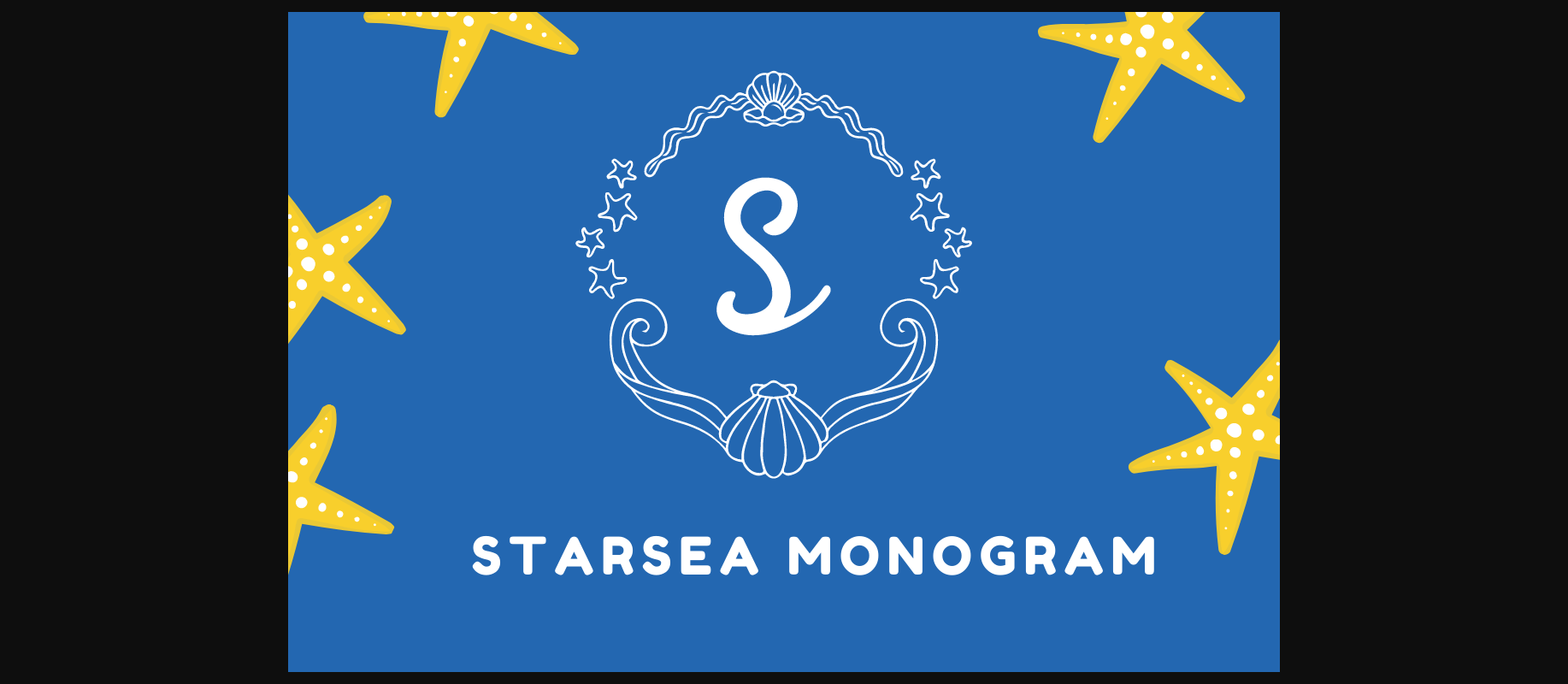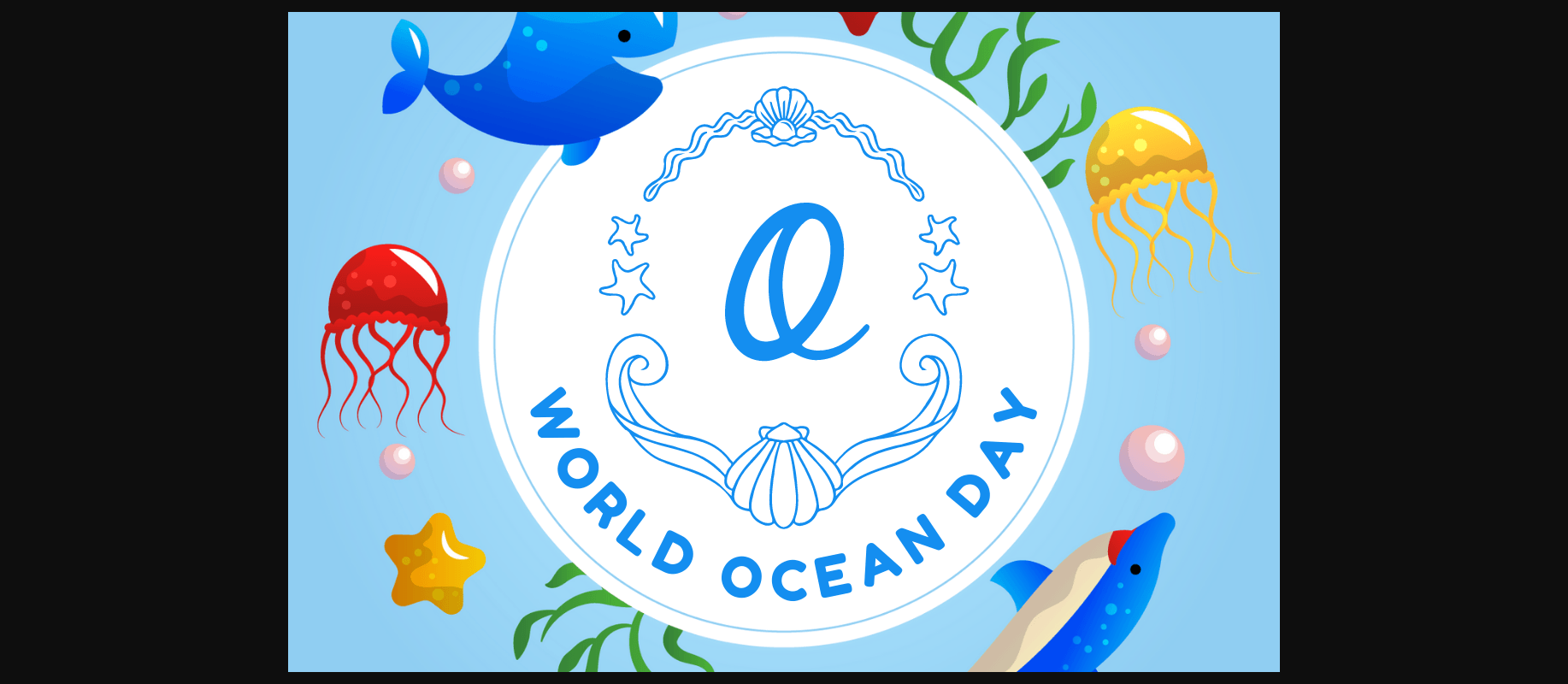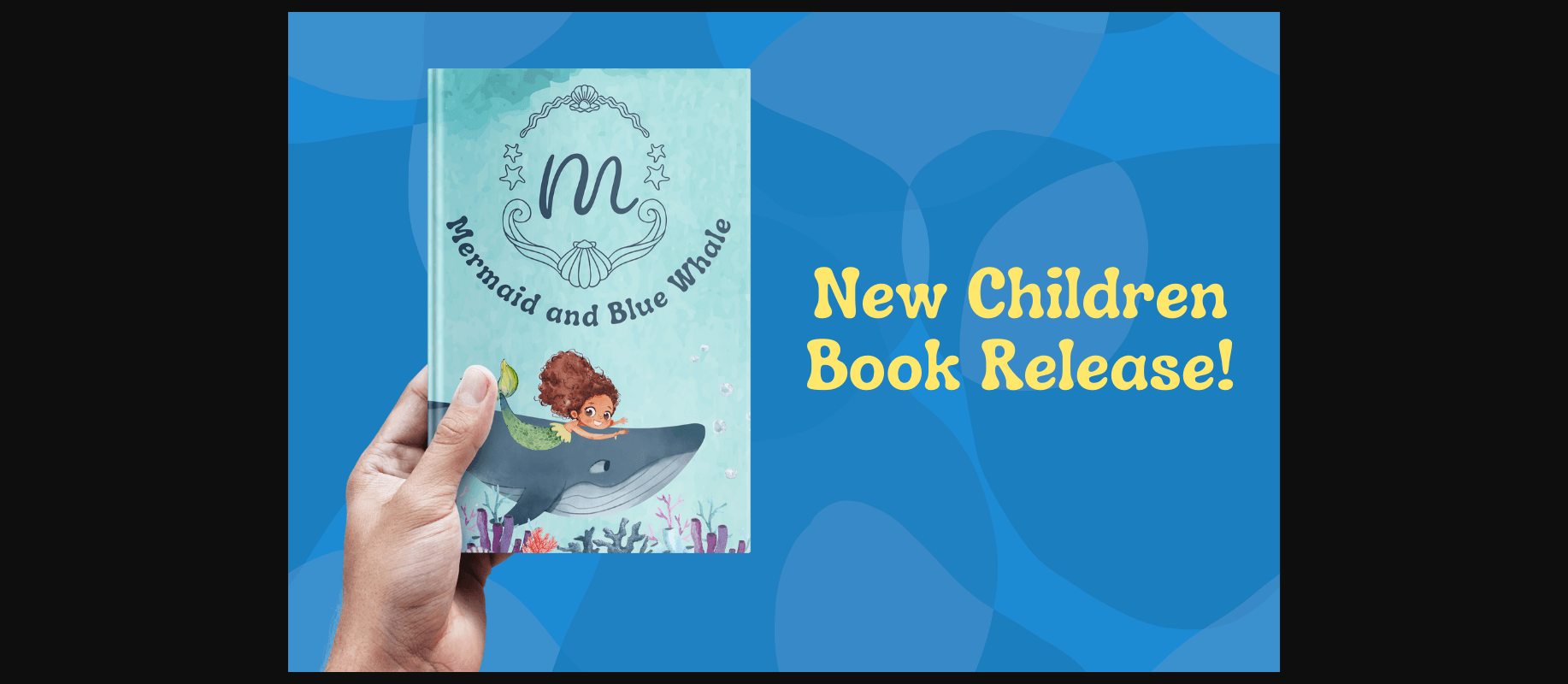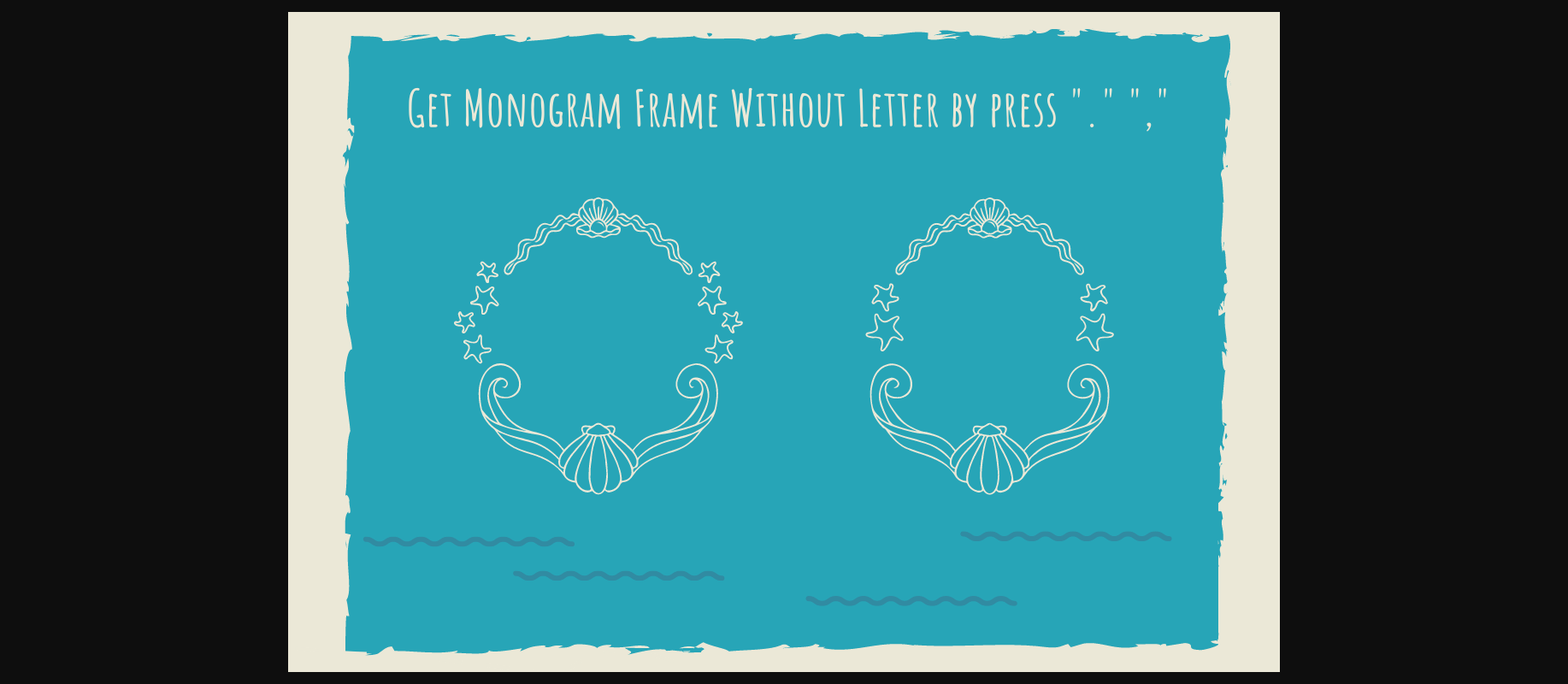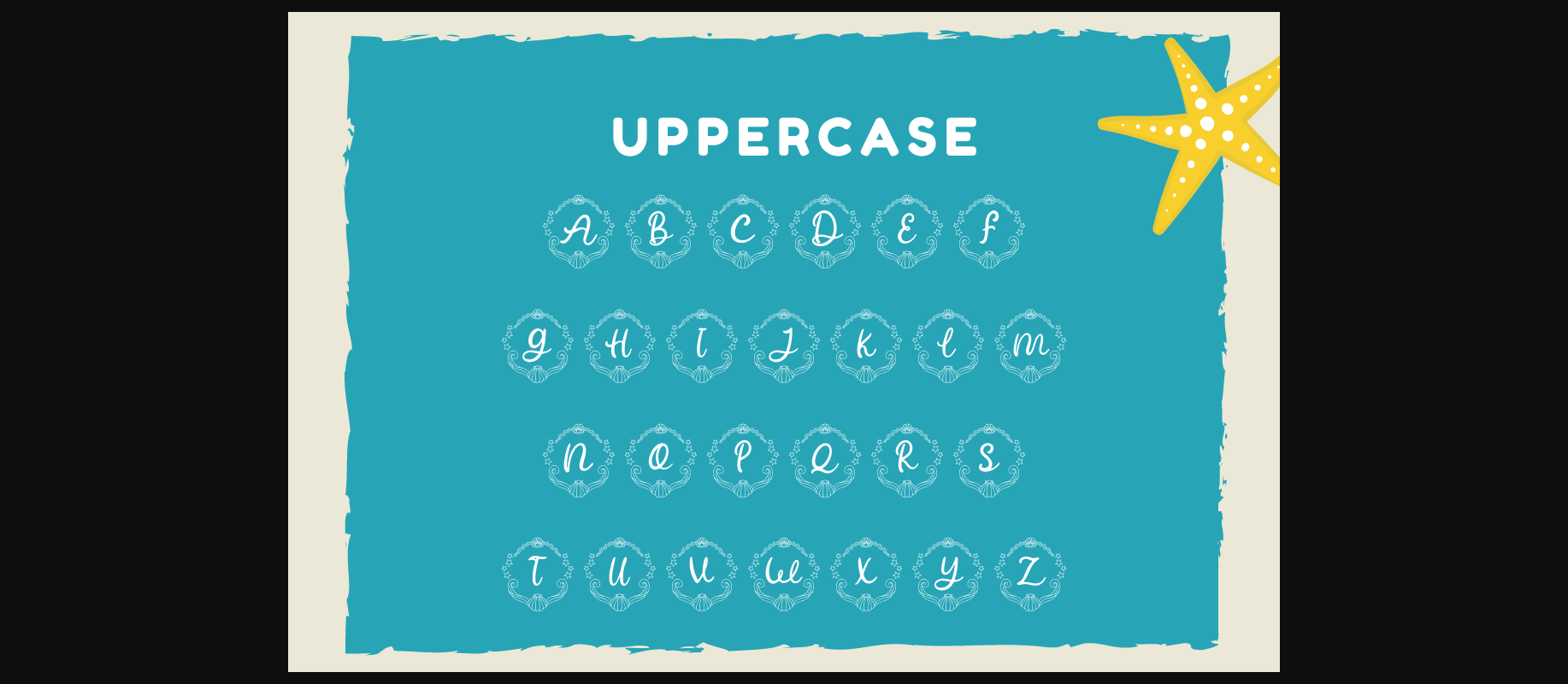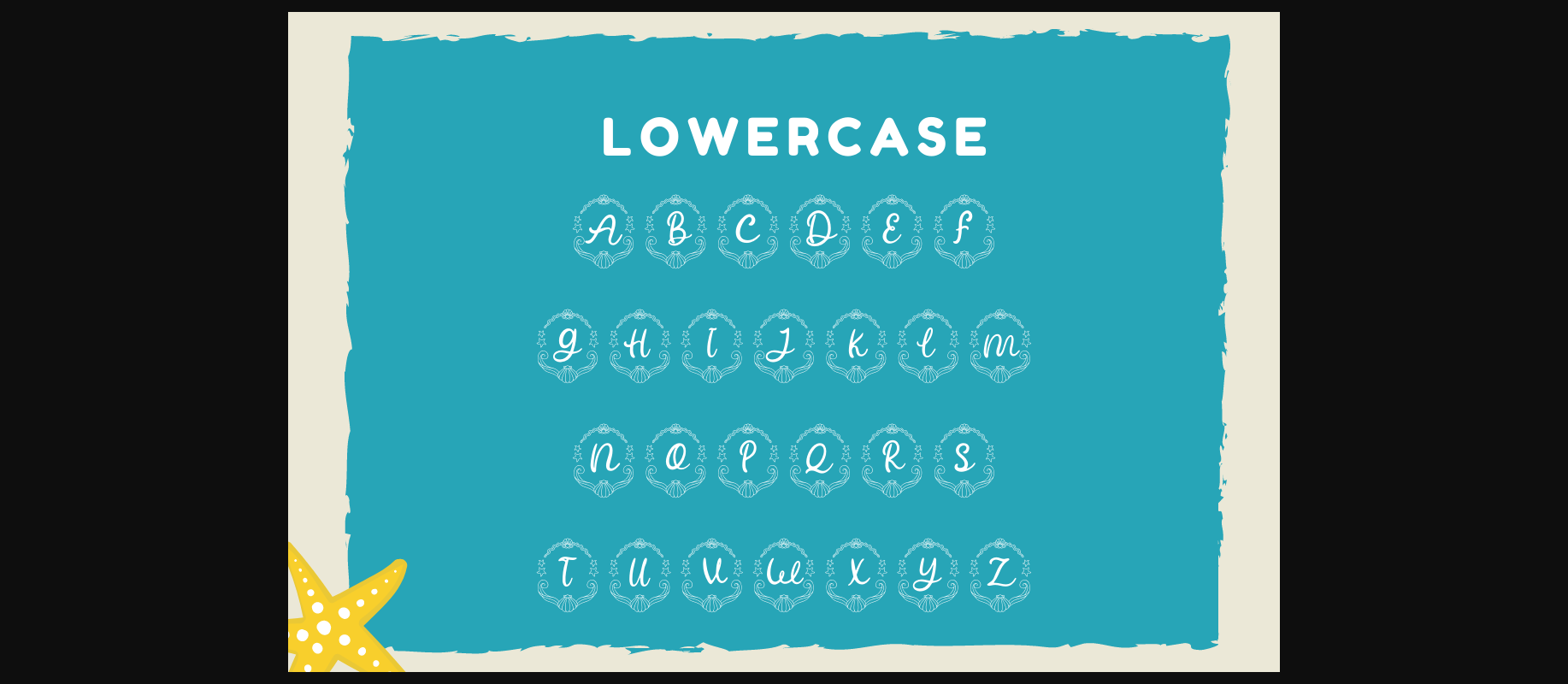
Starsea Monogram is a summer-themed monogram font. Fall in love with its lovely seashells and lines and add it to your special summer projects, business designs, logos, branding, social media posts, and wedding cards.